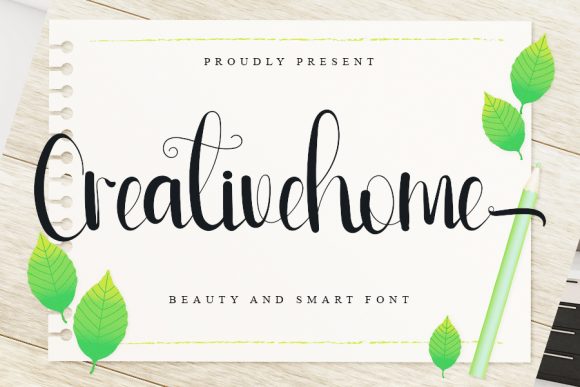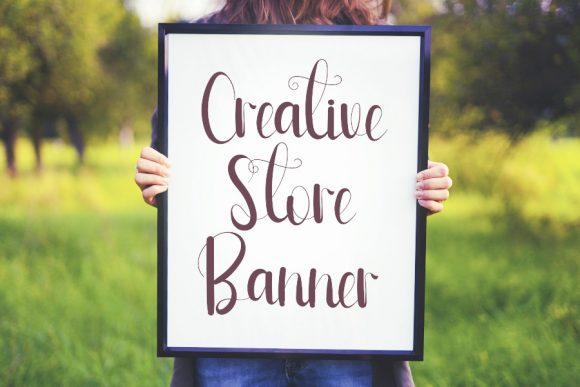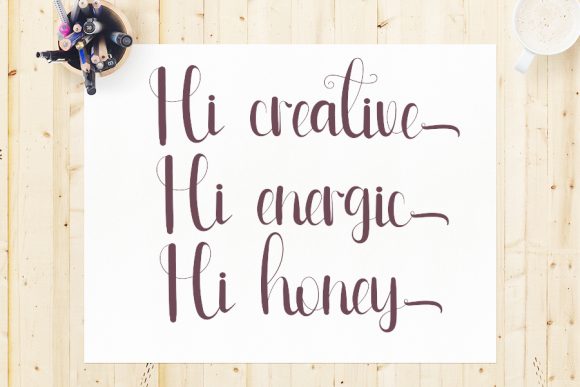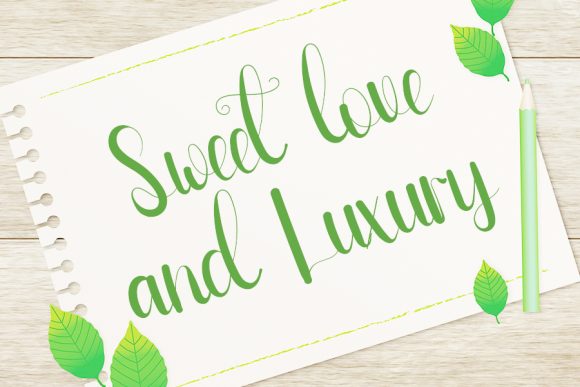
Creativehome Font
About Creativehome Font
Creativehome is a delicate and elegant handwritten font. Its distinct and well rounded letters make this font a masterpiece. Fall in love with its incredibly versatile style and use it to create spectacular designs!